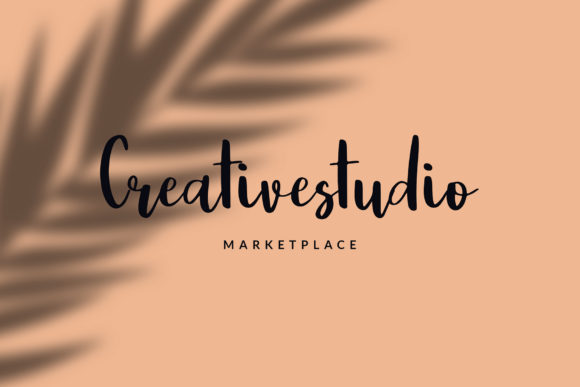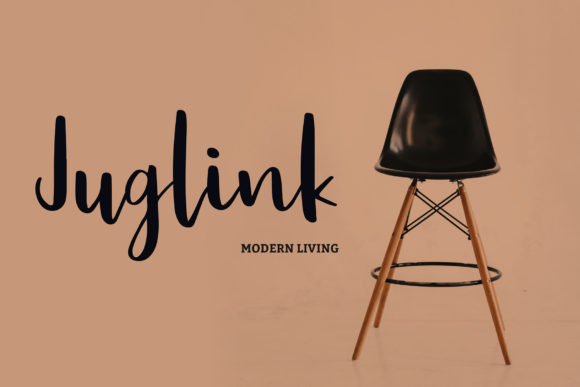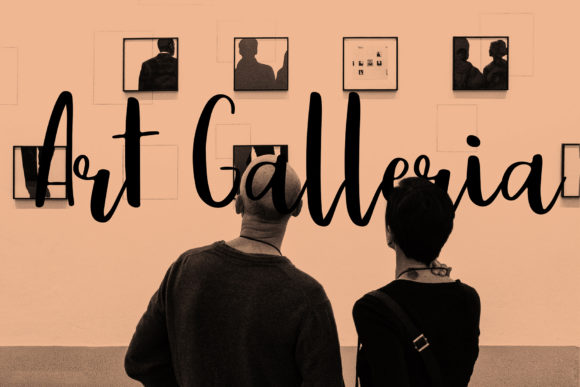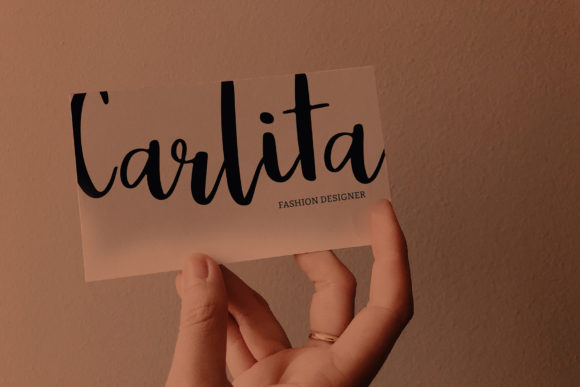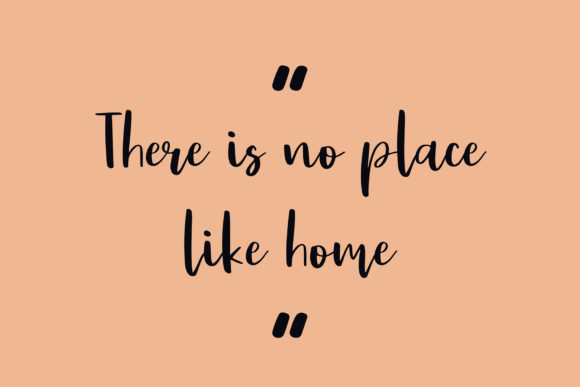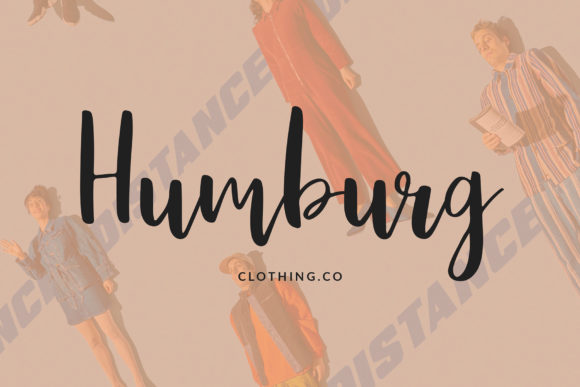
Discover the Elegance of Drawing Book Font: Elevate Your Designs with a Timeless Style
Are you a designer or crafter looking for a font that can add a touch of elegance and sophistication to your projects? Look no further than the Drawing Book font, a beautiful, flowing handwritten font that is sure to capture your heart. With its incredibly distinct and timeless style, this font is perfect for creating spectacular designs that will leave a lasting impression.
The Characteristics of Drawing Book Font
Drawing Book font is described by its elegant touch, which is achieved through its unique blend of fluid lines and subtle curves. This font is the epitome of handwritten typography, with each letter carefully crafted to create a sense of movement and flow. The result is a font that exudes a sense of refinement and luxury, making it perfect for a wide range of design applications.
The Benefits of Using Drawing Book Font
So why should you choose Drawing Book font for your next project? Here are just a few benefits of using this incredible font:
- Elegance and sophistication: Drawing Book font adds a touch of elegance and sophistication to any design, making it perfect for projects that require a high level of refinement.
- Timeless style: Unlike trendy fonts that quickly go out of style, Drawing Book font has a timeless quality that ensures your designs will remain stylish for years to come.
- Versatility: This font is incredibly versatile, making it suitable for a wide range of design applications, from branding and advertising to packaging and digital media.
- Emotional connection: The flowing, handwritten nature of Drawing Book font creates an emotional connection with the viewer, making it perfect for projects that require a personal touch.
How to Use Drawing Book Font in Your Designs
Using Drawing Book font in your designs is easy, and there are countless ways to incorporate it into your work. Here are a few ideas to get you started:
- Branding and logos: Use Drawing Book font to create a custom logo or brand identity that exudes elegance and sophistication.
- Digital media: Add a touch of refinement to your digital media projects, such as social media graphics, blog posts, and email marketing campaigns.
- Packaging and labels: Use Drawing Book font to create beautiful packaging and labels that stand out on store shelves.
- Stationery and cards: Add a personal touch to your stationery and cards with this beautiful, handwritten font.
Tips for Getting the Most Out of Drawing Book Font
To get the most out of Drawing Book font, here are a few tips to keep in mind:
- Experiment with different sizes and colors: Don’t be afraid to experiment with different sizes and colors to find the perfect combination for your design.
- Pair it with other fonts: Try pairing Drawing Book font with other fonts to create a unique and visually appealing combination.
- Use it sparingly: While Drawing Book font is incredibly elegant, it can be overwhelming if used too much. Use it sparingly to create a sense of balance and harmony.
In conclusion, Drawing Book font is a beautiful, flowing handwritten font that is perfect for designers and crafters looking to add a touch of elegance and sophistication to their projects. With its incredibly distinct and timeless style, this font is sure to capture your heart and elevate your designs to the next level. So why wait? Fall in love with Drawing Book font and start creating spectacular designs today!